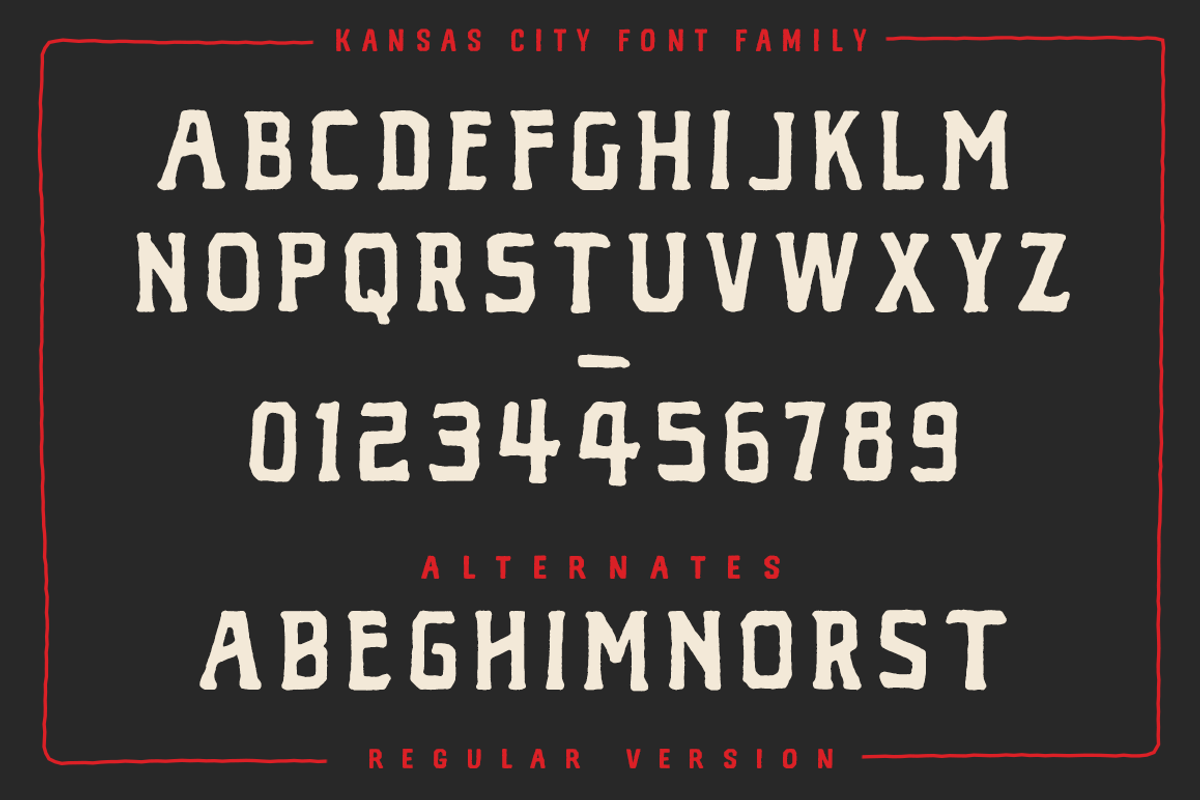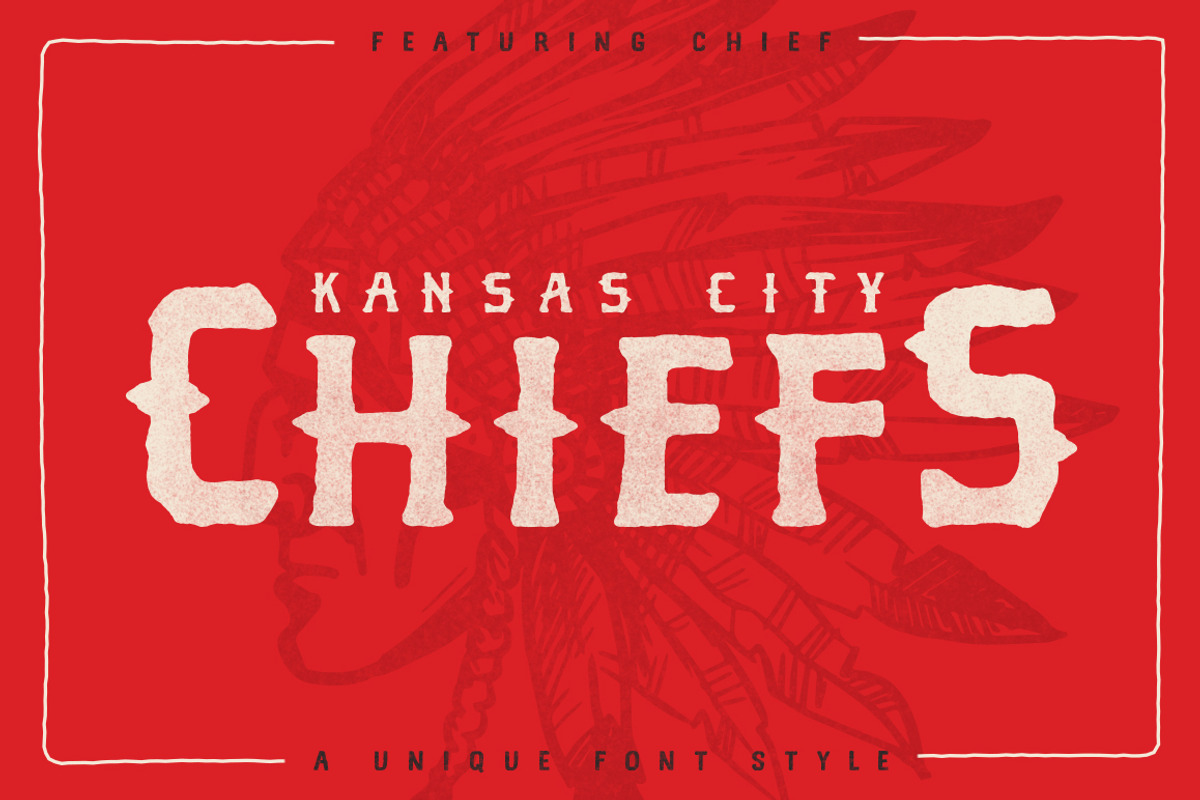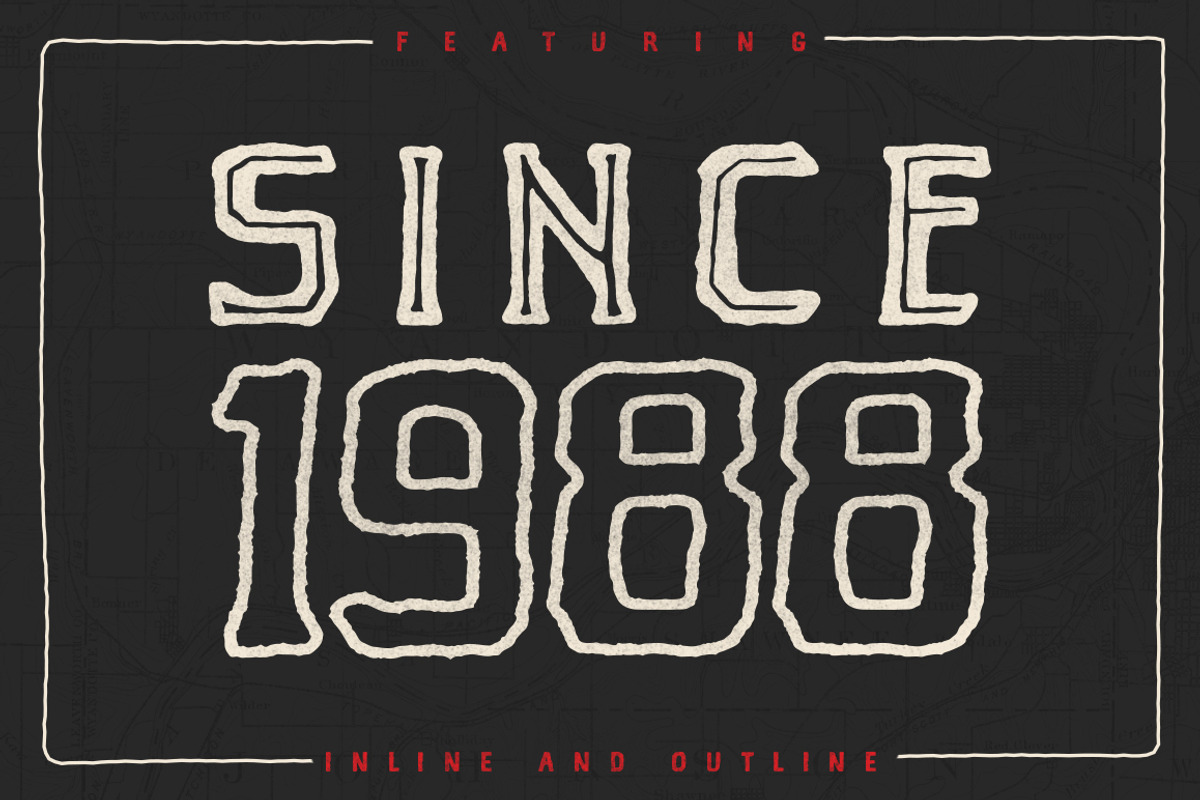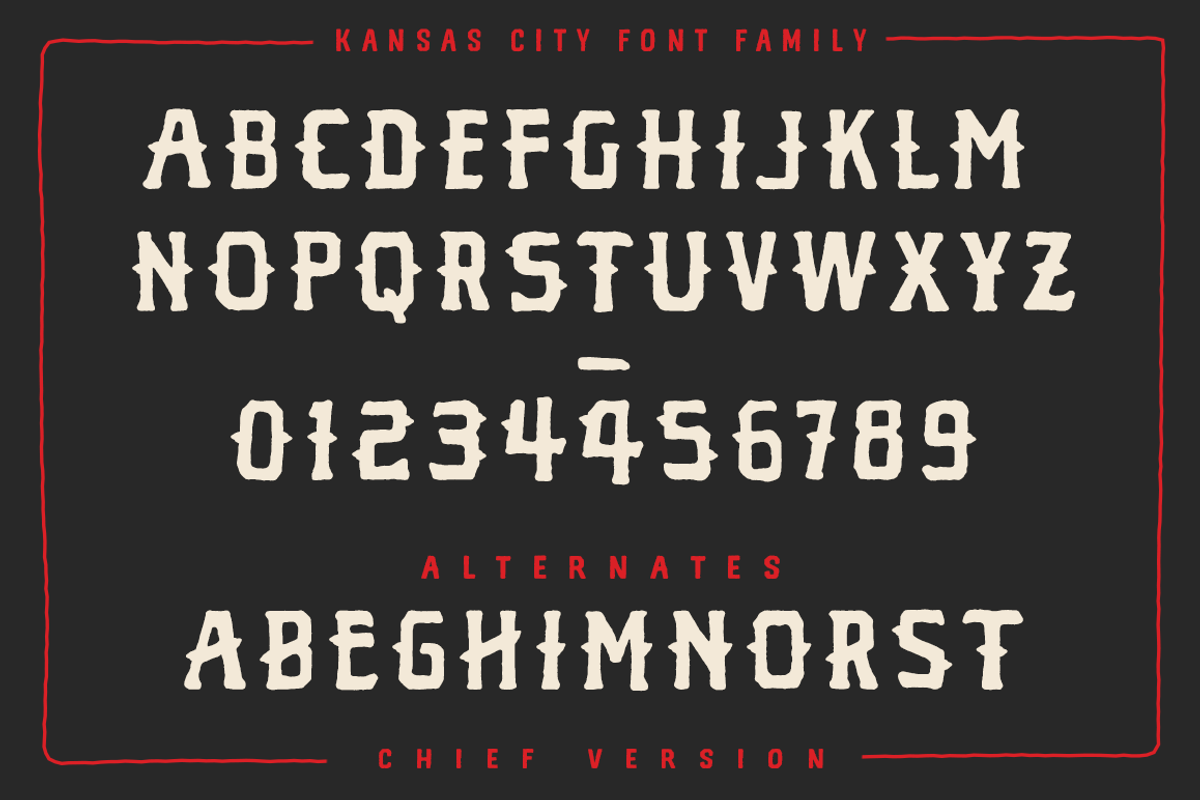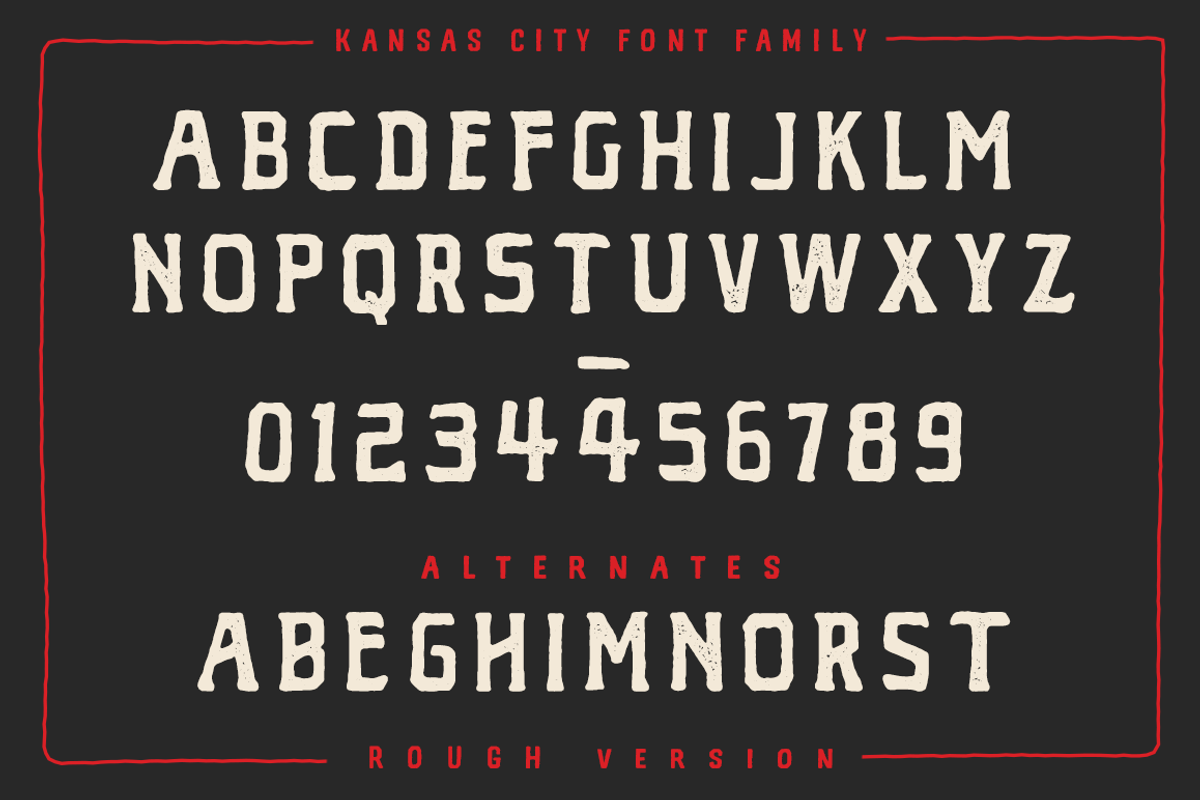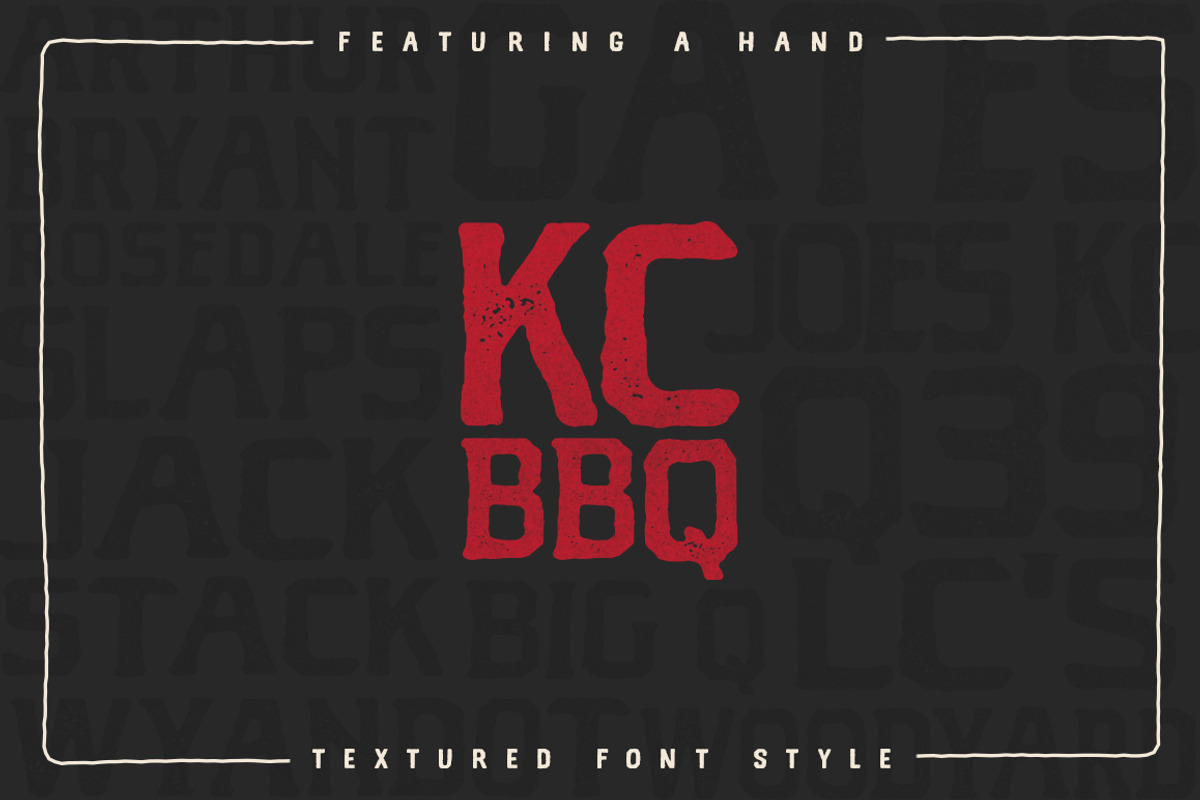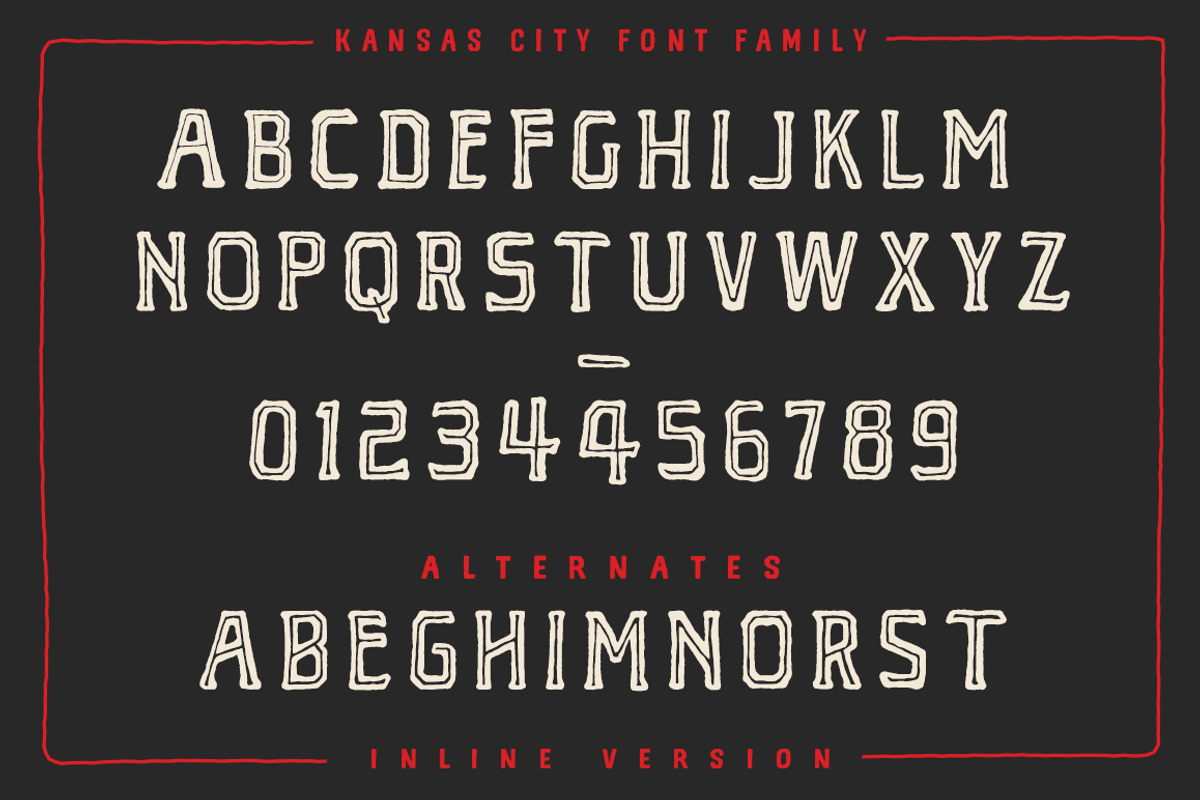
Kansas City - Font Family
INTRODUCING THE KANSAS CITY FONT FAMILY
The wait is finally over, KANSAS CITY is here. Under development for a few months, this font family is the total package for all design and typography needs. From branding and label design to apparel, Kansas City Font Family can do it all.
Each style features numbers, basic glyphs, and a plethora of alternates for versatility.
- Regular - Hand-drawn, gritty base font style
- Textured - A lightly letterpress textured style
- Chief - Features hand-drawn triangular tick marks branching off each letter
- Inline - A hand-drawn inline version
- Outline - A hand-drawn outline version
- Regular - Hand-drawn, gritty base font style
- Textured - A lightly letterpress textured style
- Chief - Features hand-drawn triangular tick marks branching off each letter
- Inline - A hand-drawn inline version
- Outline - A hand-drawn outline version
- Each style features numbers, basic glyphs, and a plethora of alternates for versatility.